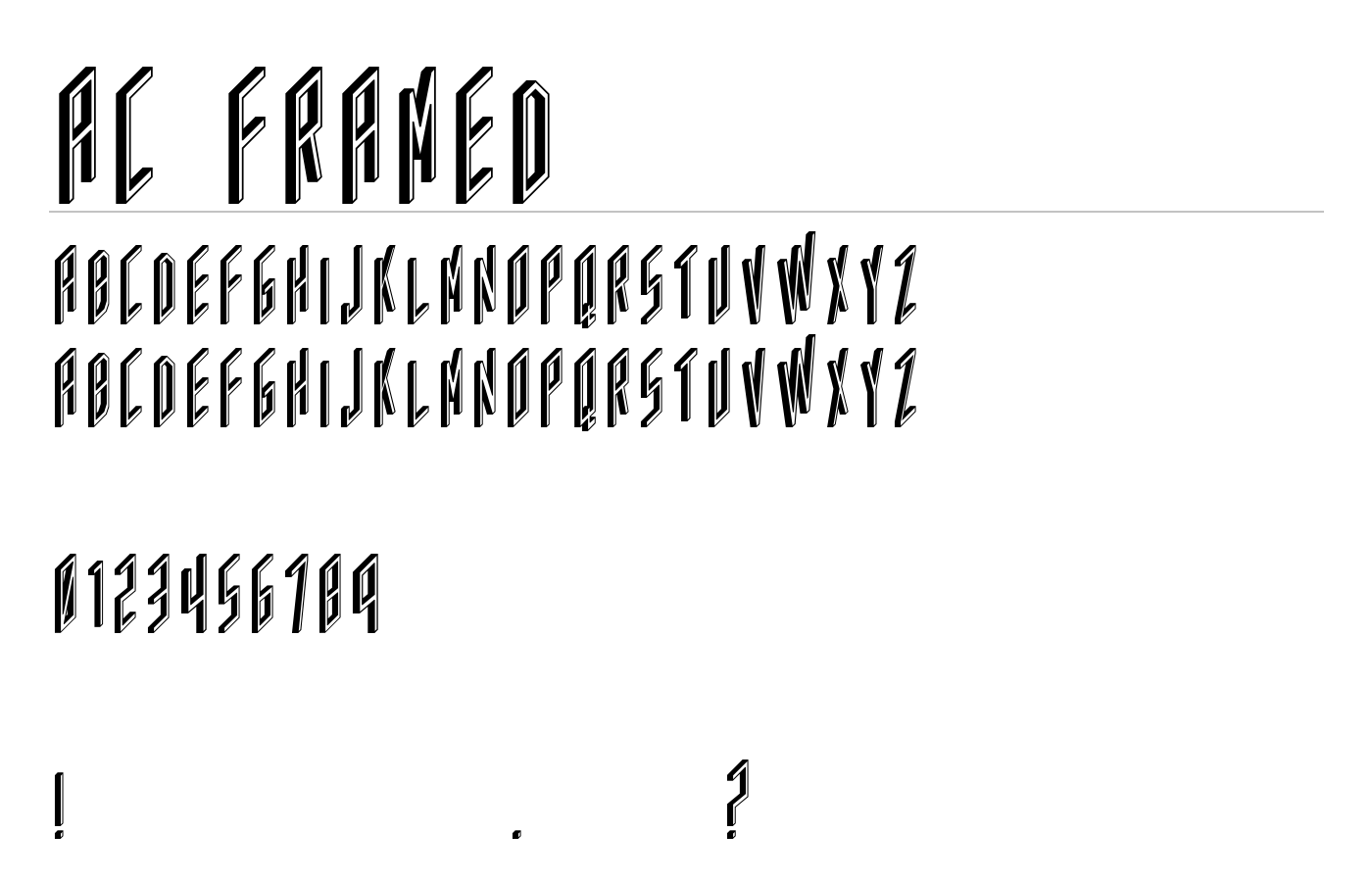
AC Framed is a narrow, sans serif display font with a unique 3D shadowed effect that adds depth and a futuristic vibe. Its tall, condensed letterforms and sharp angles give it a striking, modern look, making it perfect for eye-catching headlines, logos, and branding in creative or tech-focused projects. This font stands out in bold, trendy designs where a strong visual impact is needed.
AC Framed Font
| Designer | Adrian Candela |